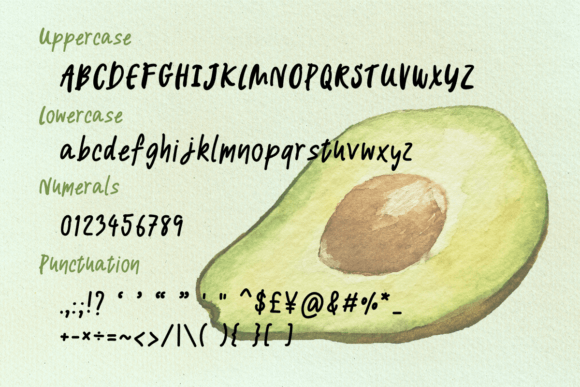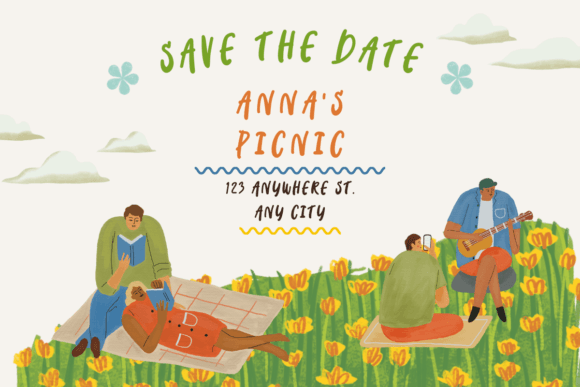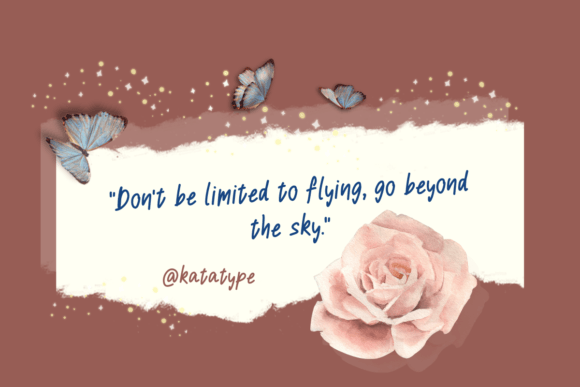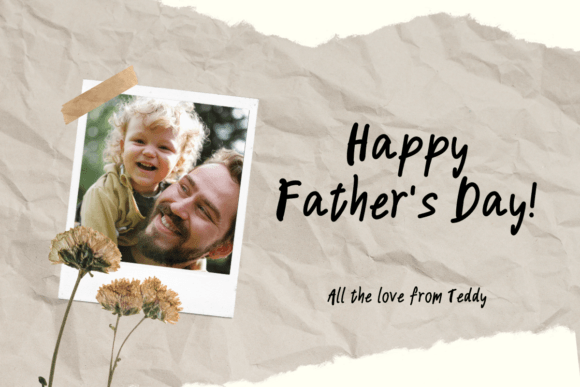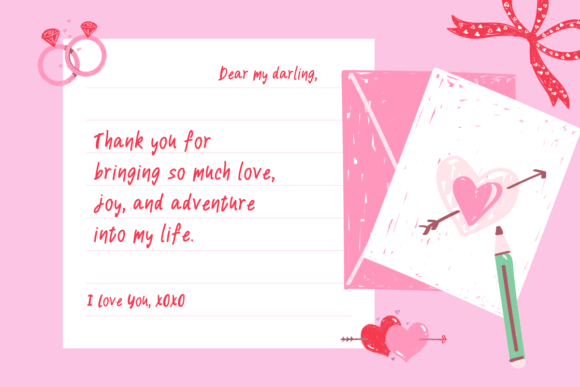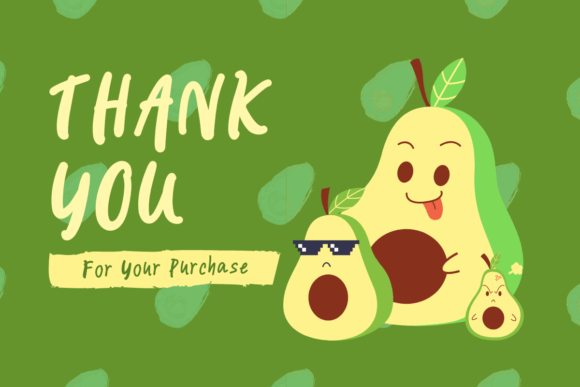
Introducing Avocado Salad Font: The Perfect Blend of Fun and Freshness
Are you tired of using the same old fonts in your designs? Look no further than Avocado Salad Font, a handwritten font that’s sure to add a personal and creative touch to your work. With its organic strokes and quirky characters, Avocado Salad is the perfect choice for designers and crafters looking to give their designs a fresh and natural feel.
The Characteristics of Avocado Salad Font
Avocado Salad Font is a handwritten font that’s designed to look fun and playful. Its organic strokes and quirky characters give it a unique and charming personality that’s sure to capture the attention of your audience. The font’s natural and effortless feel makes it perfect for a wide range of design applications, from logos and branding to social media graphics and more.
What Makes Avocado Salad Font So Special?
So, what sets Avocado Salad Font apart from other fonts on the market? Here are just a few of the things that make it so special:
- Organic Strokes: Avocado Salad Font features organic strokes that give it a natural and effortless feel. This makes it perfect for designs that need to look fresh and modern.
- Quirky Characters: The font’s quirky characters add a touch of personality to your designs. Whether you’re creating logos, branding, or social media graphics, Avocado Salad Font is sure to make your work stand out.
- Handwritten Feel: Avocado Salad Font has a handwritten feel that’s perfect for designs that need to look personal and creative. This makes it ideal for designers and crafters who want to add a touch of warmth and personality to their work.
How to Use Avocado Salad Font in Your Designs
Avocado Salad Font is a versatile font that can be used in a wide range of design applications. Here are just a few ideas for how you can use it in your work:
- Logos and Branding: Avocado Salad Font is perfect for creating logos and branding that need to look fresh and modern. Its organic strokes and quirky characters make it ideal for businesses that want to stand out from the crowd.
- Social Media Graphics: The font’s natural and effortless feel makes it perfect for social media graphics. Whether you’re creating posts, stories, or ads, Avocado Salad Font is sure to make your work look great.
- Invitations and Stationery: Avocado Salad Font is also perfect for creating invitations and stationery that need to look personal and creative. Its handwritten feel makes it ideal for weddings, parties, and other special occasions.
Tips for Getting the Most Out of Avocado Salad Font
Here are just a few tips for getting the most out of Avocado Salad Font:
- Experiment with Different Sizes: Avocado Salad Font looks great in a wide range of sizes. Experiment with different sizes to find the one that works best for your design.
- Pair it with Other Fonts: Avocado Salad Font pairs well with other fonts that have a similar feel. Try pairing it with a sans-serif font for a modern and fresh look.
- Use it in Combination with Images: Avocado Salad Font looks great in combination with images. Try using it to add text to your photos or illustrations.
| Font Name | Avocado Salad Font |
| Author | Katatype |
Avocado Salad Font is a unique and charming font that’s perfect for designers and crafters looking to add a personal and creative touch to their work. Its organic strokes and quirky characters give it a fresh and natural feel that’s sure to capture the attention of your audience. Whether you’re creating logos, branding, or social media graphics, Avocado Salad Font is the perfect choice. So why not give it a try and see the difference it can make in your designs?